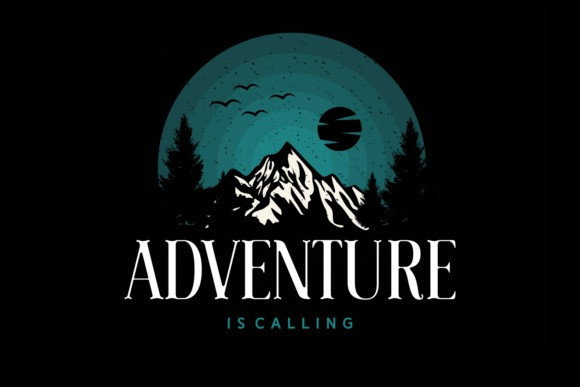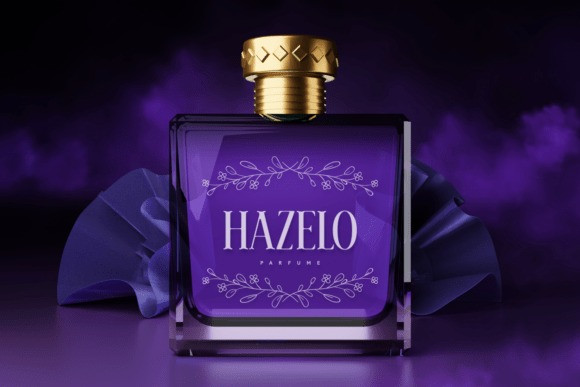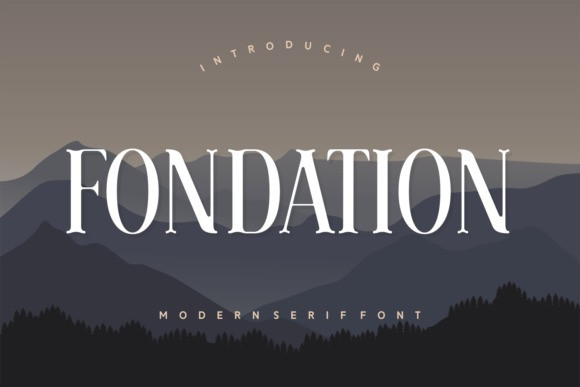
Fondation Font
Fondation Font a harmonious blend of sophistication and versatility in the world of fonts. Combining an elegant, modern essence, Fondation is a wonderful choice for a variety of applications. From the sleek design of photography overlays to accentuating apparel labels, Fondation shines in every application. Its authenticity adds a unique charm to book cover designs, branding motifs and greeting cards, infusing a sense of clean, smooth design that viewers can’t help but admire. Whether it’s utilized to enhance a magazine spread or to express a memorable quote, Fondation’s innovative design captures and maintains the viewer’s attention. Discreetly trendy, Fondation also makes an excellent choice for logotype designs and packaging, adding an air of refinement. Furthermore, it’s the perfect pick for t-shirts that make a statement. Experience the flair and finesse of Fondation, where style meets functionality in the world of fonts.